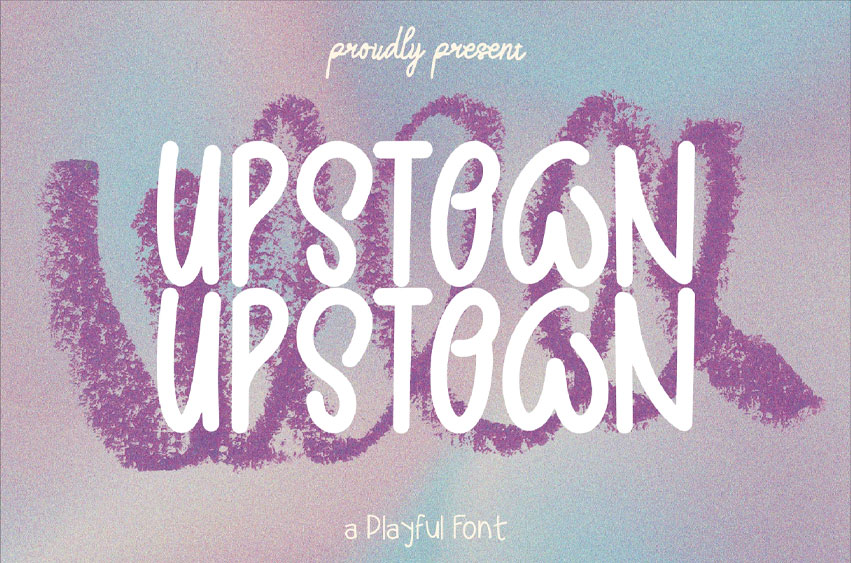
Upstown Font
Upstown Font is a playful display font with a bold and energetic style.
Its fun letterforms and quirky personality make it perfect for posters, logos, packaging, children’s designs, and any project that needs a lively, eye-catching touch.